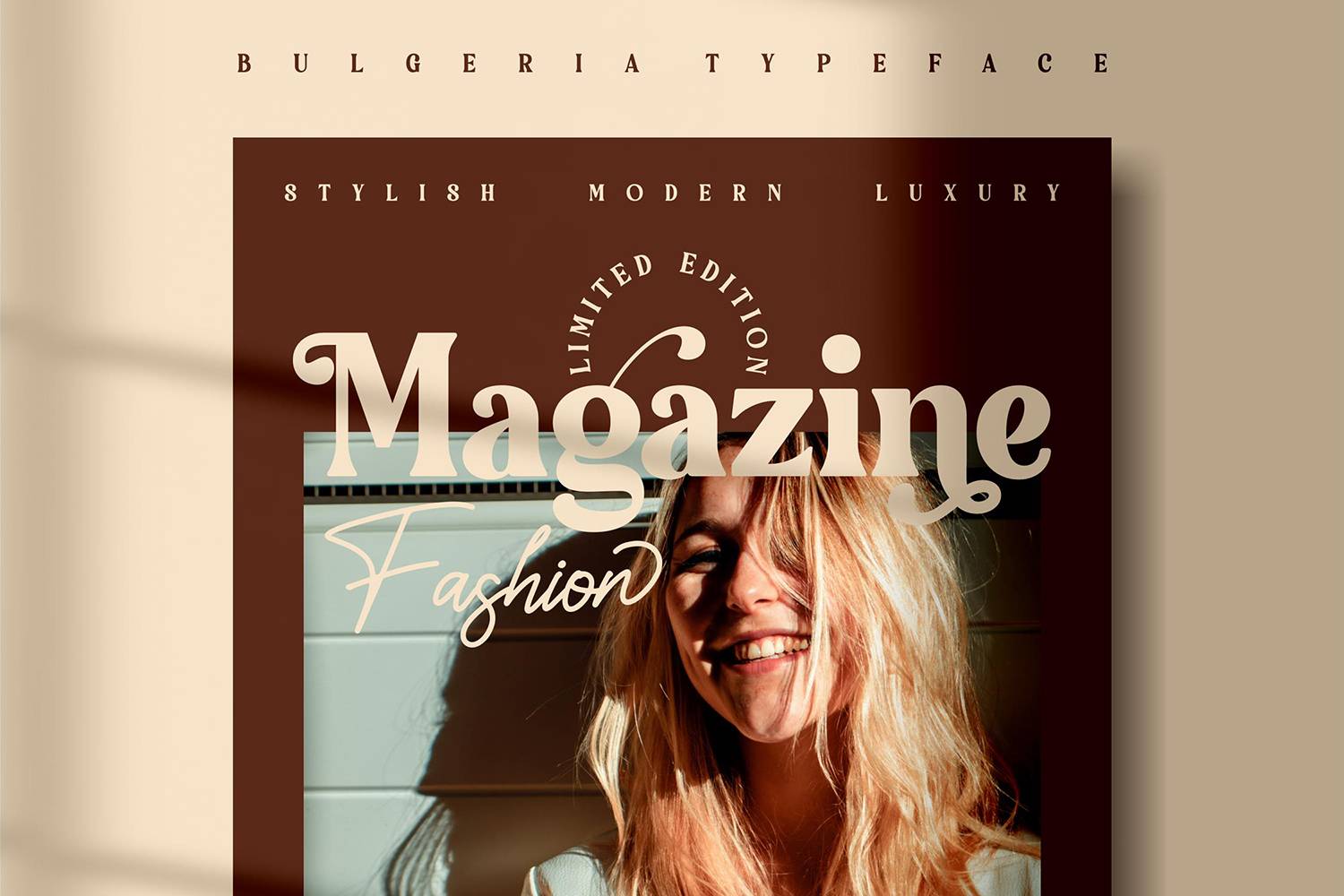
Bulgeria is a bold serif font with a strong presence, featuring a high contrast between thick and thin strokes and distinctive bracketed serifs. Its slightly condensed letterforms and playful curves give it a vintage yet approachable feel, making it ideal for branding, headlines, and editorial design where a touch of character and elegance is desired. This font works well in contexts that want to blend tradition with a modern edge, such as fashion, packaging, and print media.
Bulgeria Font
About Bulgeria Font